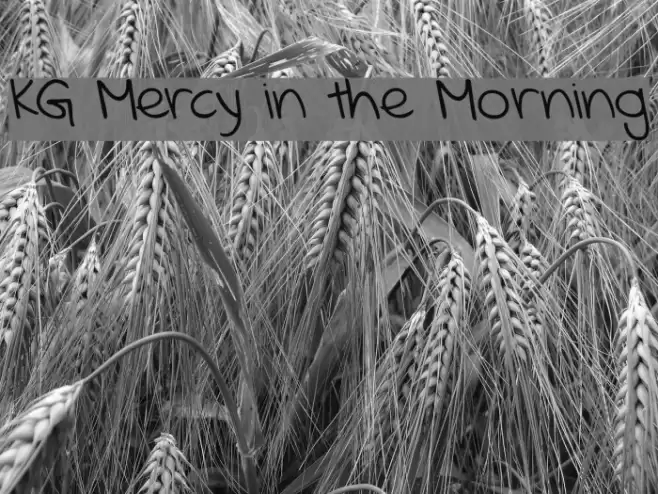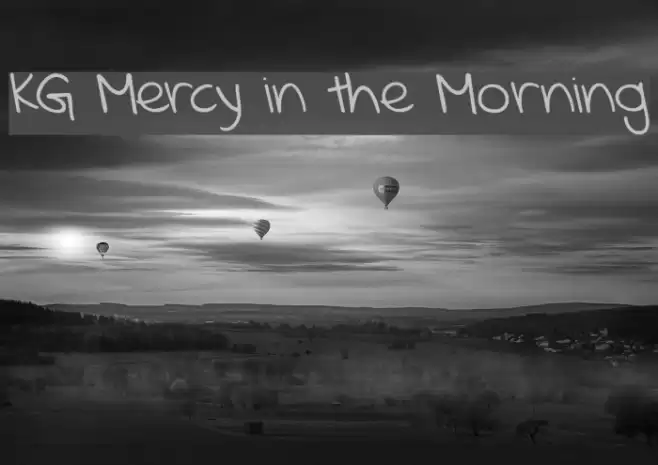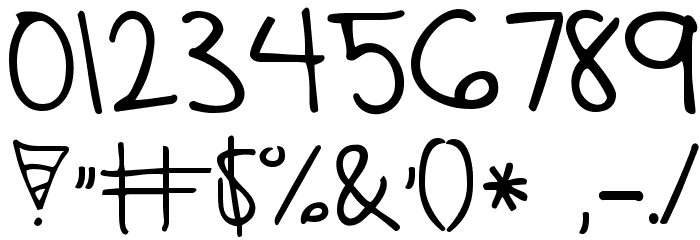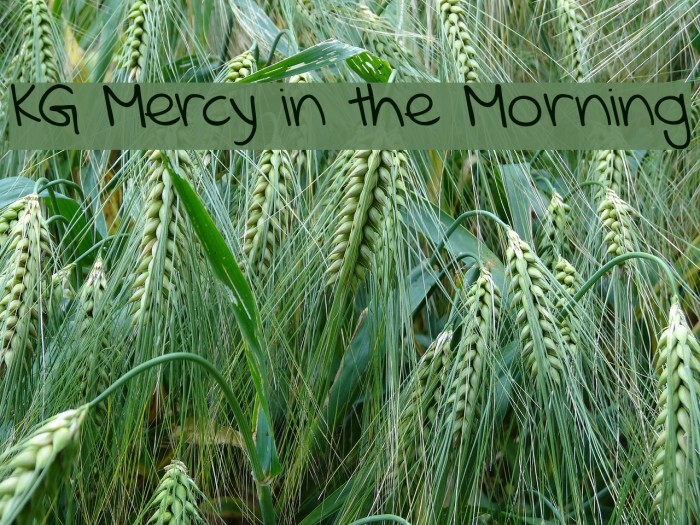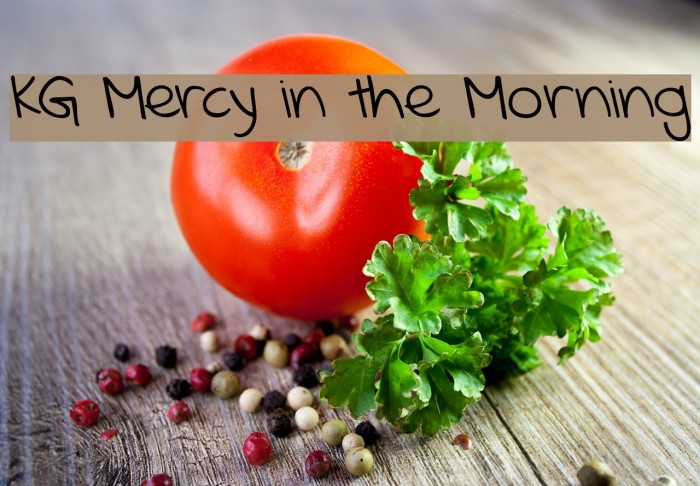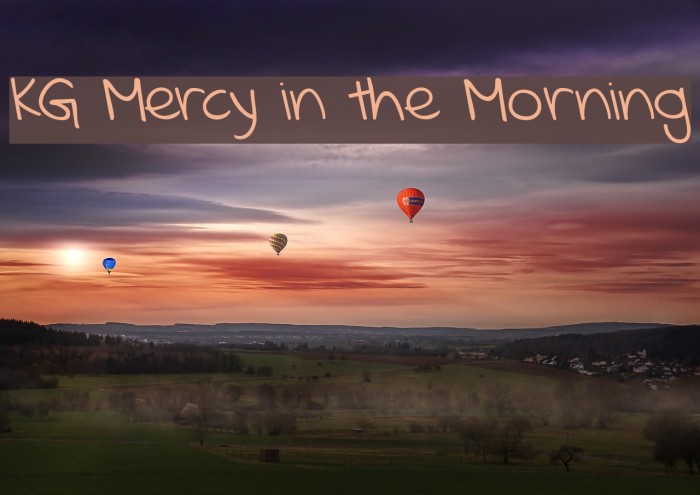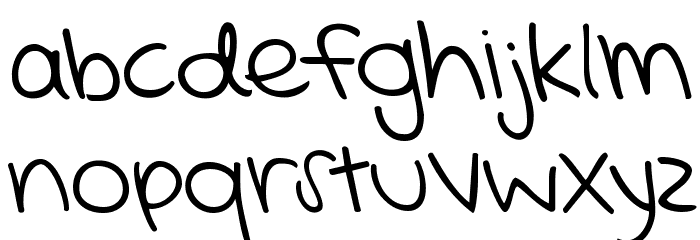
KG Mercy in the Morning Font
KG Mercy in the Morning Description
This font features a playful and casual handwritten style, characterized by its smooth, rounded strokes and slightly irregular letterforms. The uppercase and lowercase letters maintain a consistent flow, giving a friendly and approachable appearance. The numerals and special characters are designed with the same informal touch, making them blend seamlessly with the alphabet. Its overall look is reminiscent of handwriting with a marker, offering a personal and relaxed vibe. This font is ideal for projects that require a human touch, such as greeting cards, invitations, or personal branding.
A playful, handwritten font with smooth, rounded strokes and a casual feel from Handwritten fonts.
- Proposed Projects: Ideal for greeting cards, invitations, personal branding, and informal communications.
- Overall Style: Casual
- Use Case: Headlines, Informal text, Personal projects